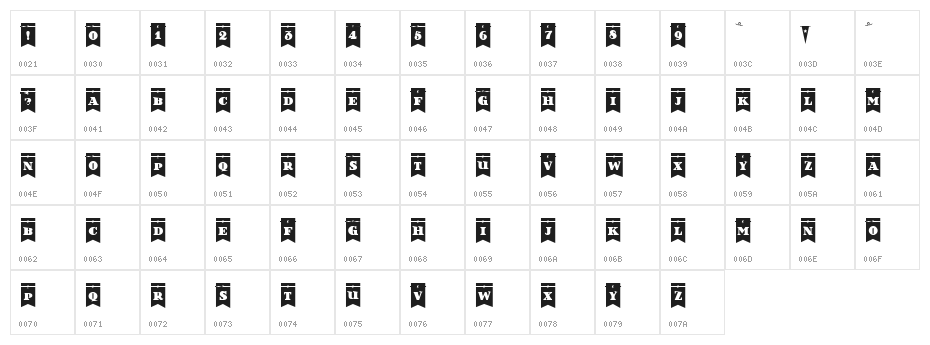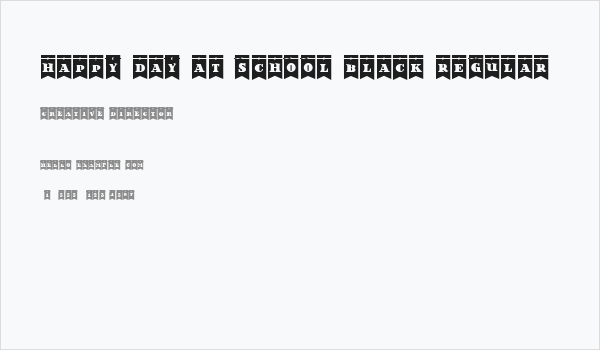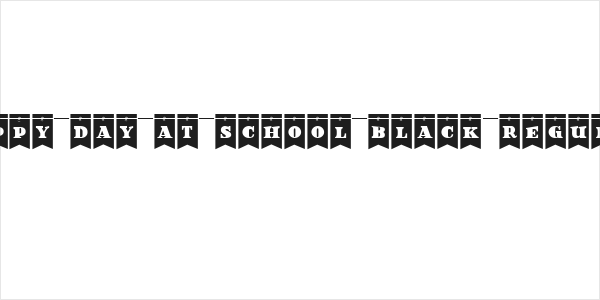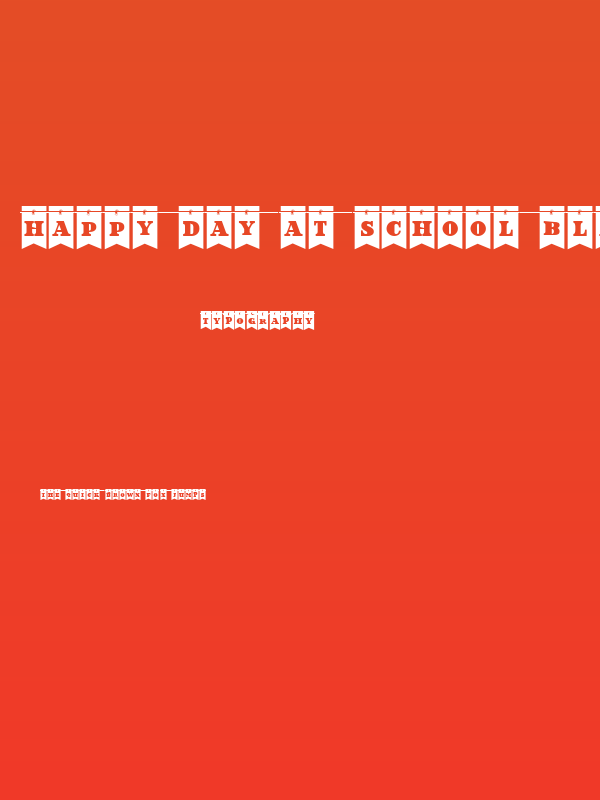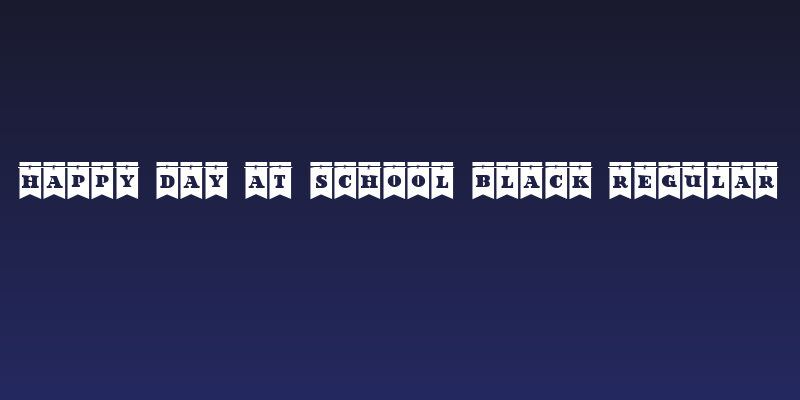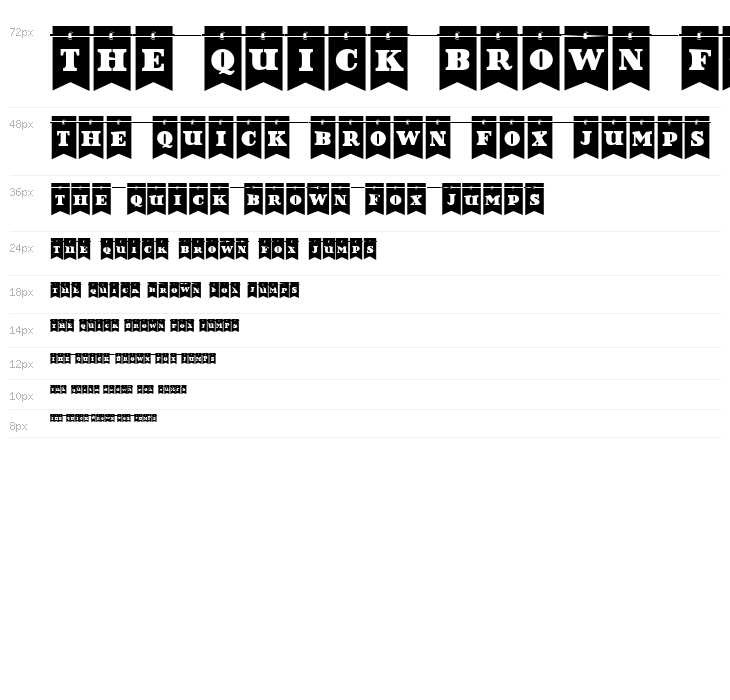
Happy Day at School Black Regular Font
Happy Day at School Black Regular Description
This font features bold, uppercase letters with a playful and decorative style. Each character is presented on a banner-like background, adding a festive and celebratory feel. The letters are thick and have a strong presence, making them ideal for attention-grabbing designs. The numbers and exclamation mark follow the same bold and decorative style, ensuring consistency across all characters. The font's unique presentation makes it suitable for themed events or educational materials.
| Proposed Projects | Ideal for school events, party invitations, banners, educational posters, and festive decorations. |